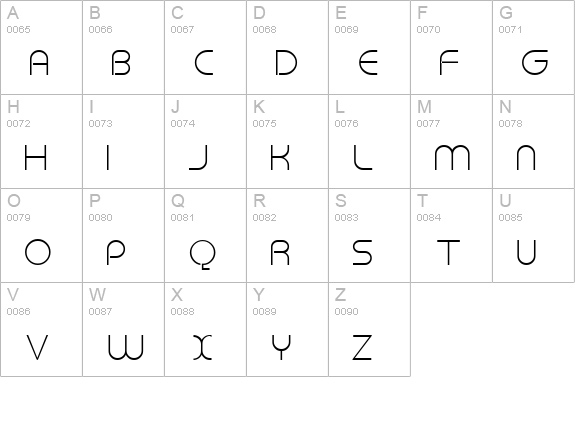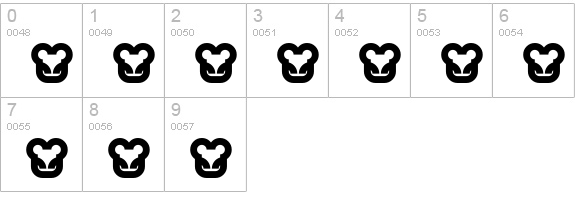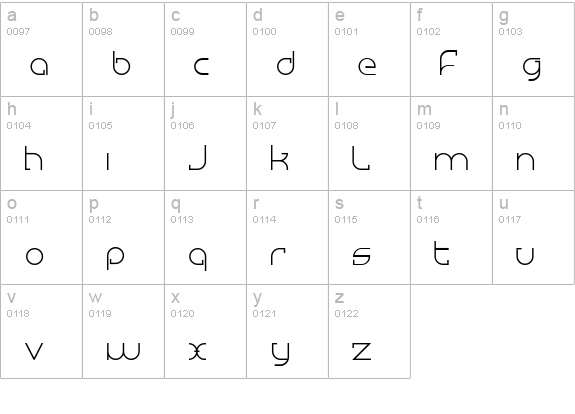
Megalomania Normal Font Details
Megalomania Normal is the standard, neutral variant in the Megalomania typeface family \xE2\x80\x94 well suited to general body text, paragraphs, and standard typographic work.
Introducing Megalomania Normal font, a versatile typeface that exudes confidence and strength. With its bold and modern design, this font is perfect for making a bold statement in your projects. Whether you're designing a poster, logo, or branding materials, Megalomania Normal font will surely grab attention and leave a lasting impression. Best of all, Megalomania Normal font is available for free download at FontsMarket.com. This means you can easily access this powerful font and elevate your designs without any cost. Don't miss out on this opportunity to add a touch of grandeur to your projects with Megalomania Normal font. Download it now and let your creativity shine!